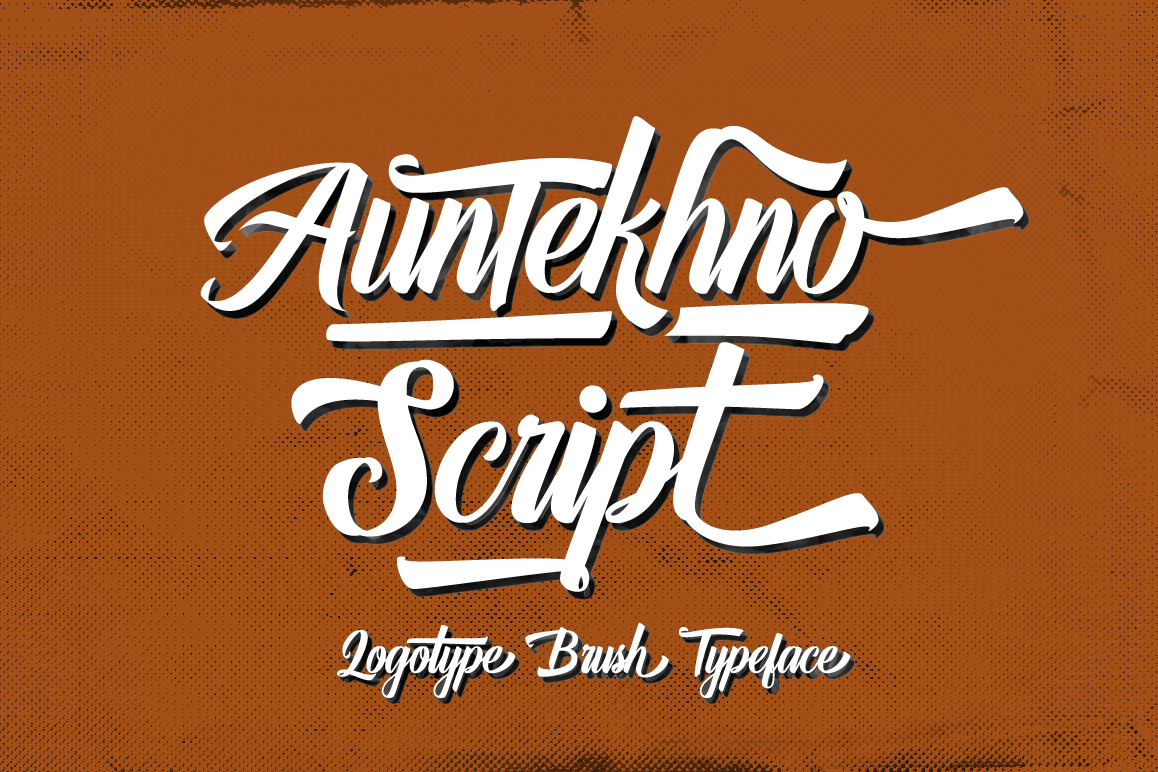
Auntekhno Script
Auntekhno Script is Vintage Script Brush Font with Handlettering Brush Style, so much opentype feature include of the font. Suitable for design, element design, wedding, event, t-shirt, logo, badges, sticker, and awesome work, etc...
- Open Type Features Fonts
- Unique style fonts